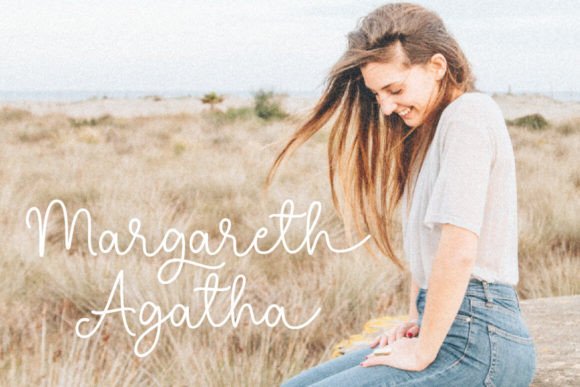
Real Love Font
Real Love is a wedding script handwriting font that exudes romance and charm. It has captivating swashes at the beginning and end of each stroke, as well as lovely letter alternates. The distinctive feature of this font is its heart-shaped connecting swashes, which provide a romantic and enchanting touch.